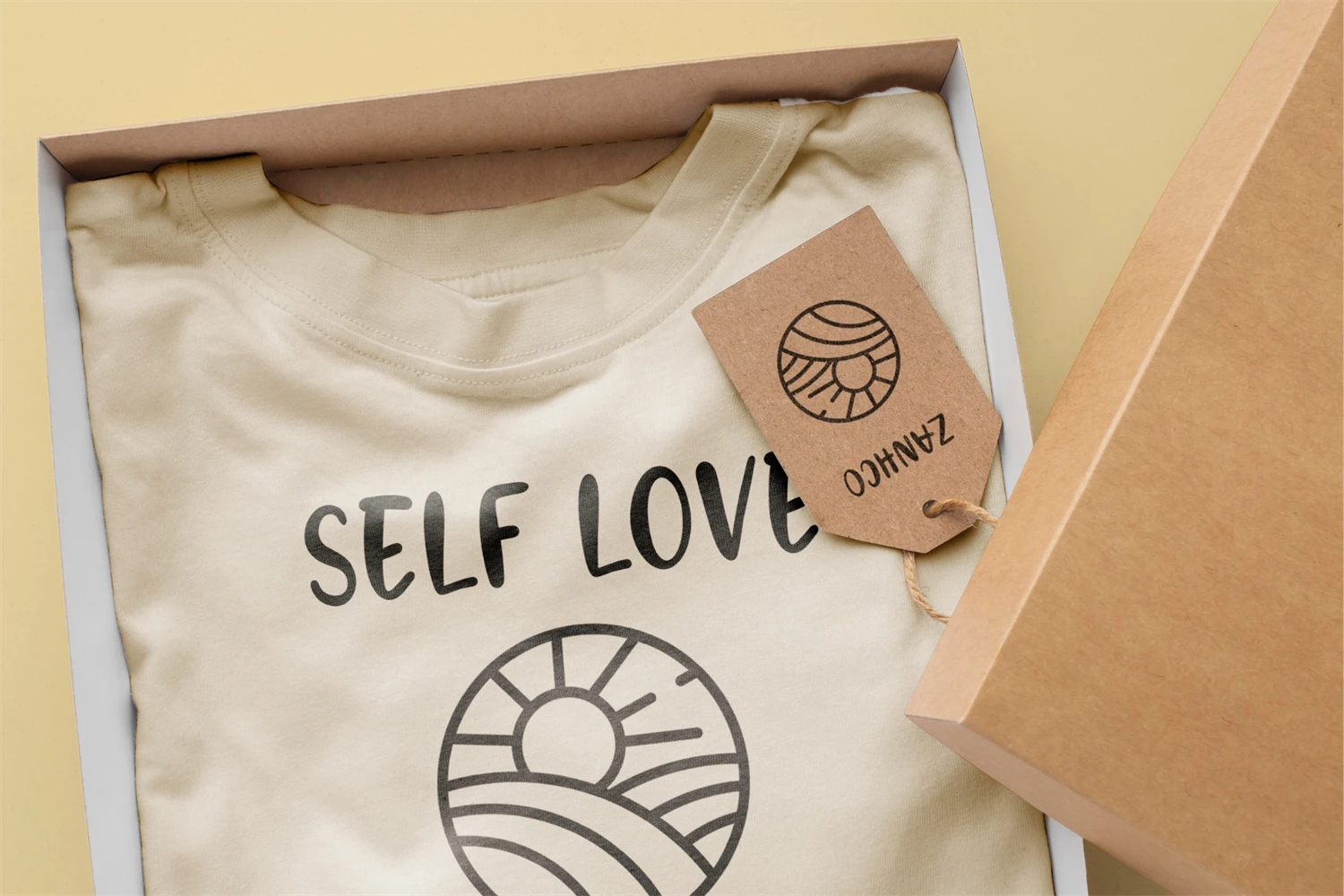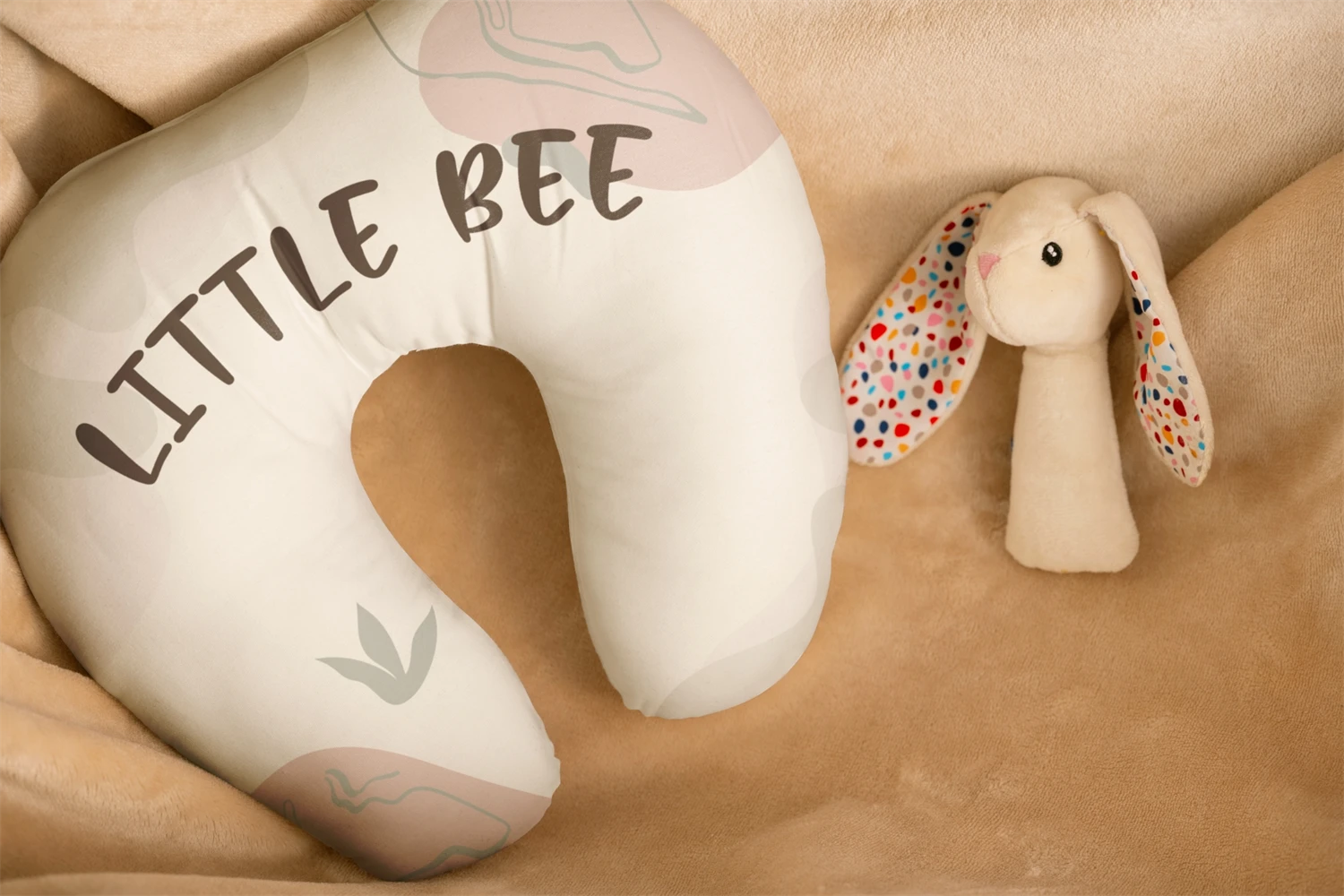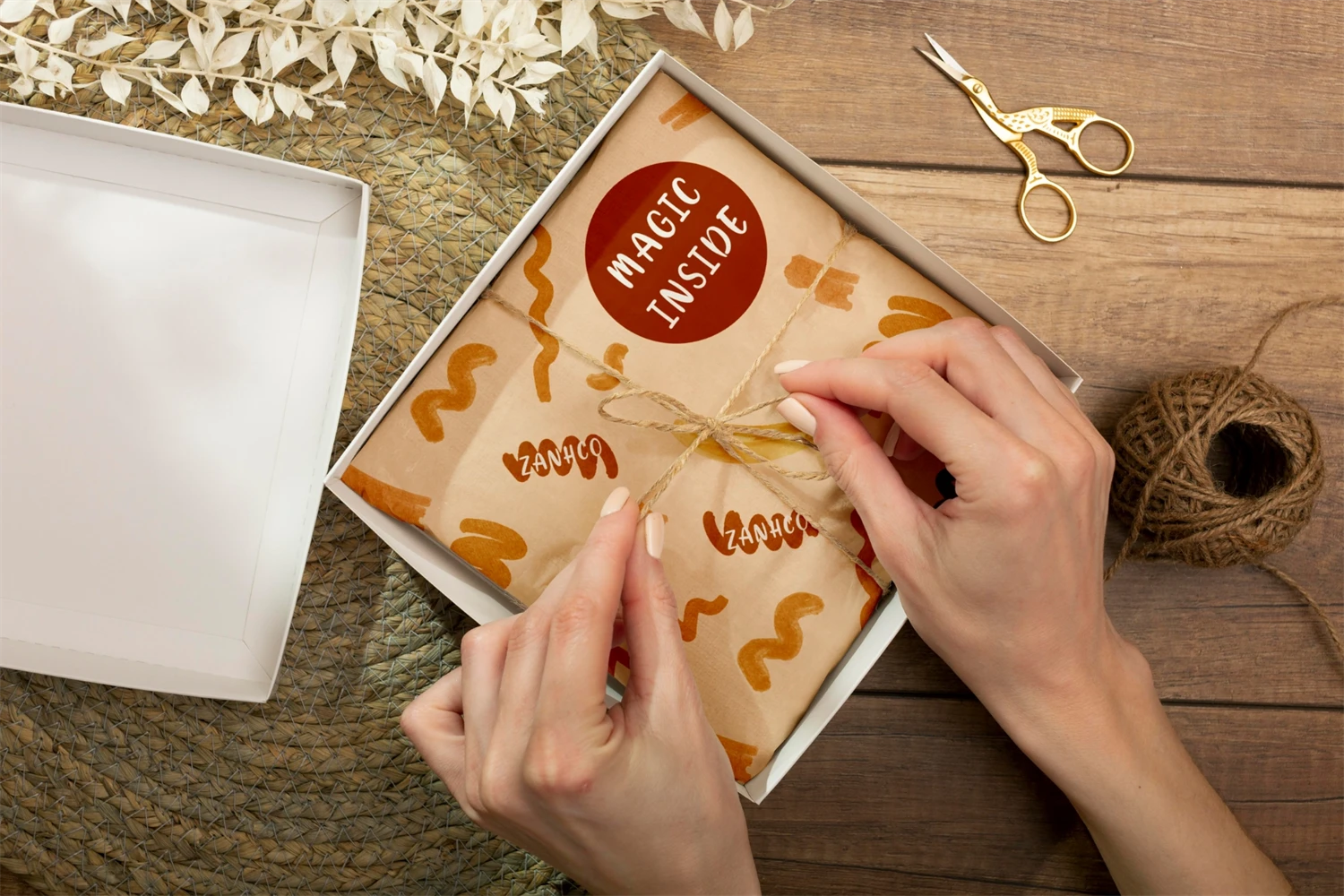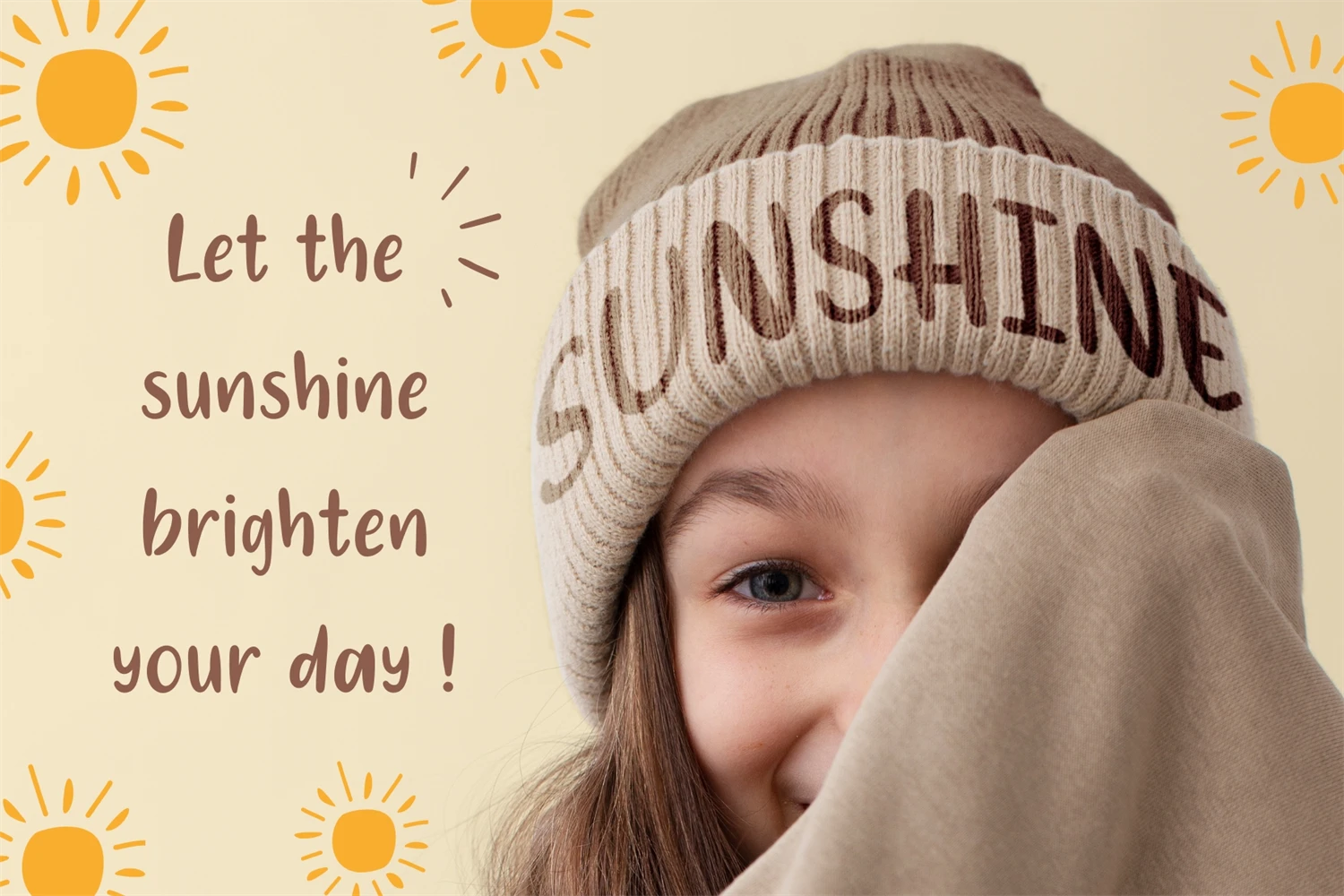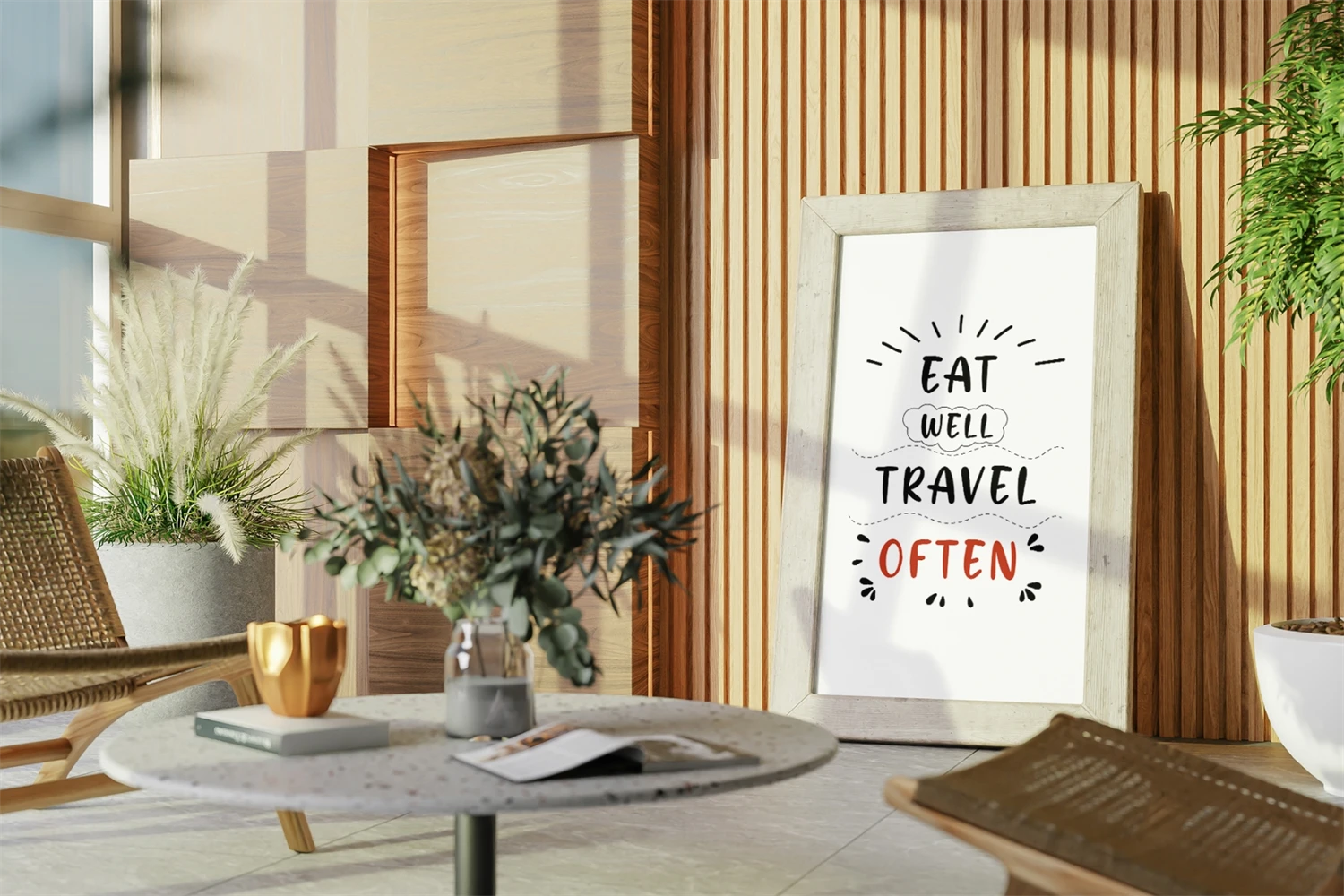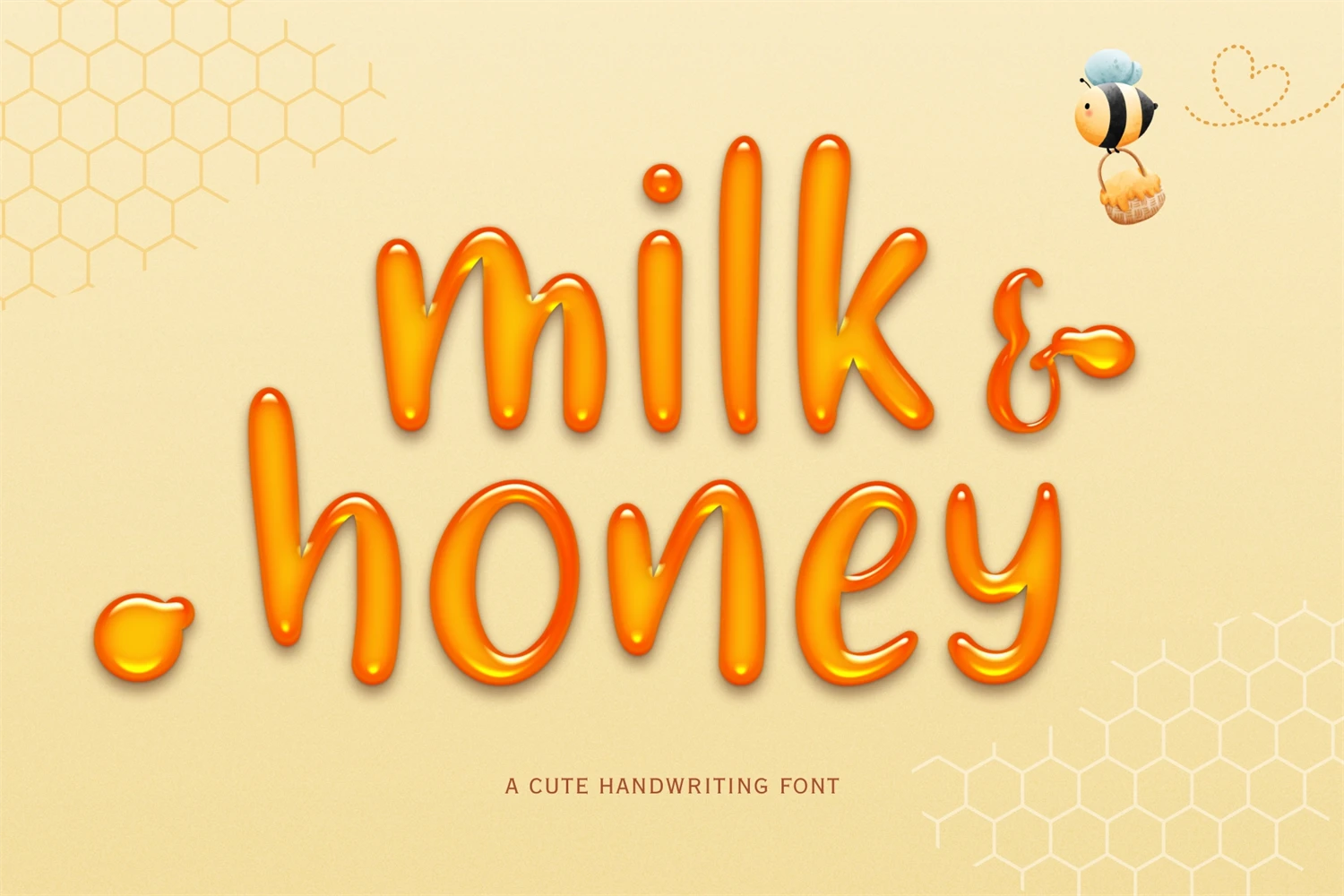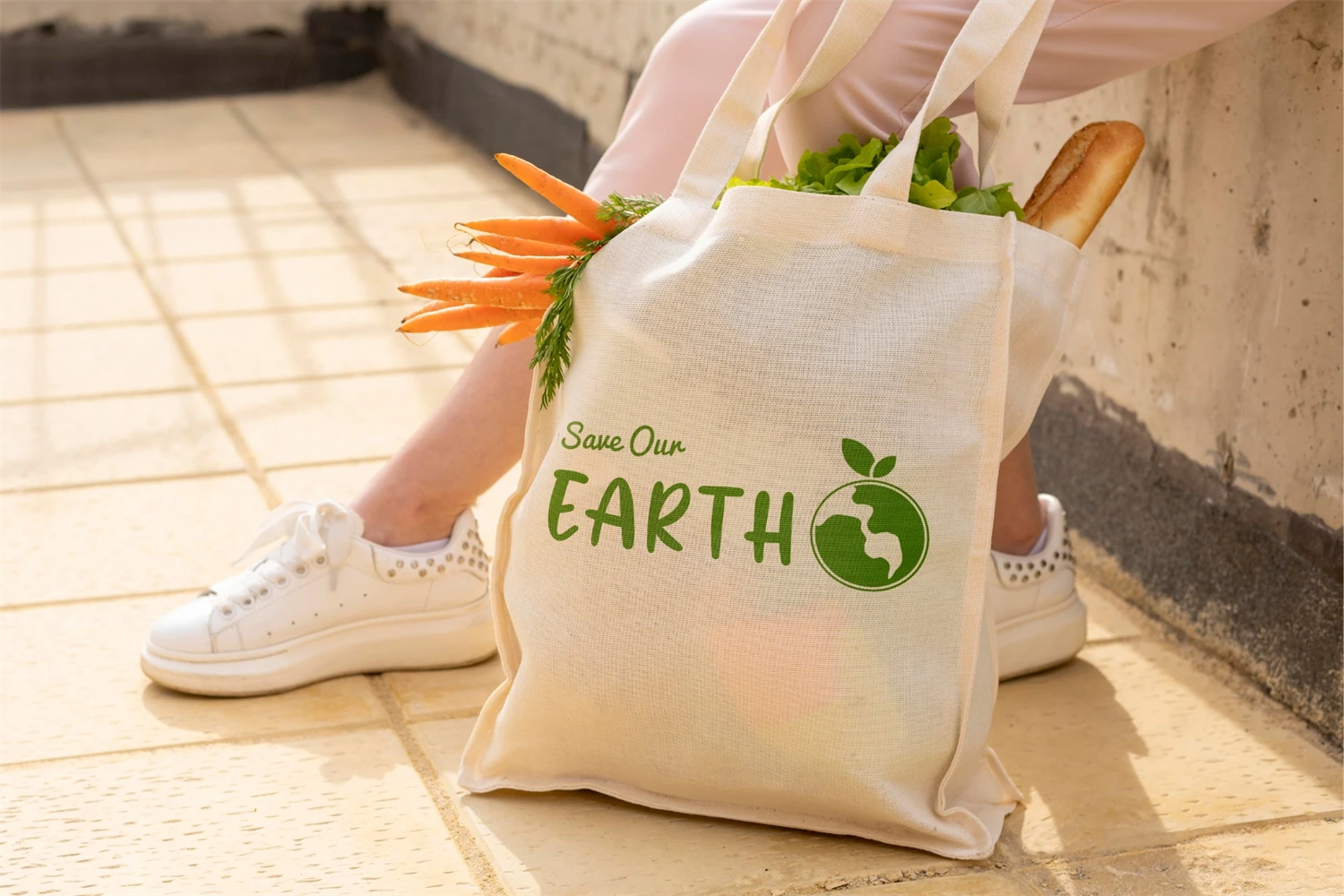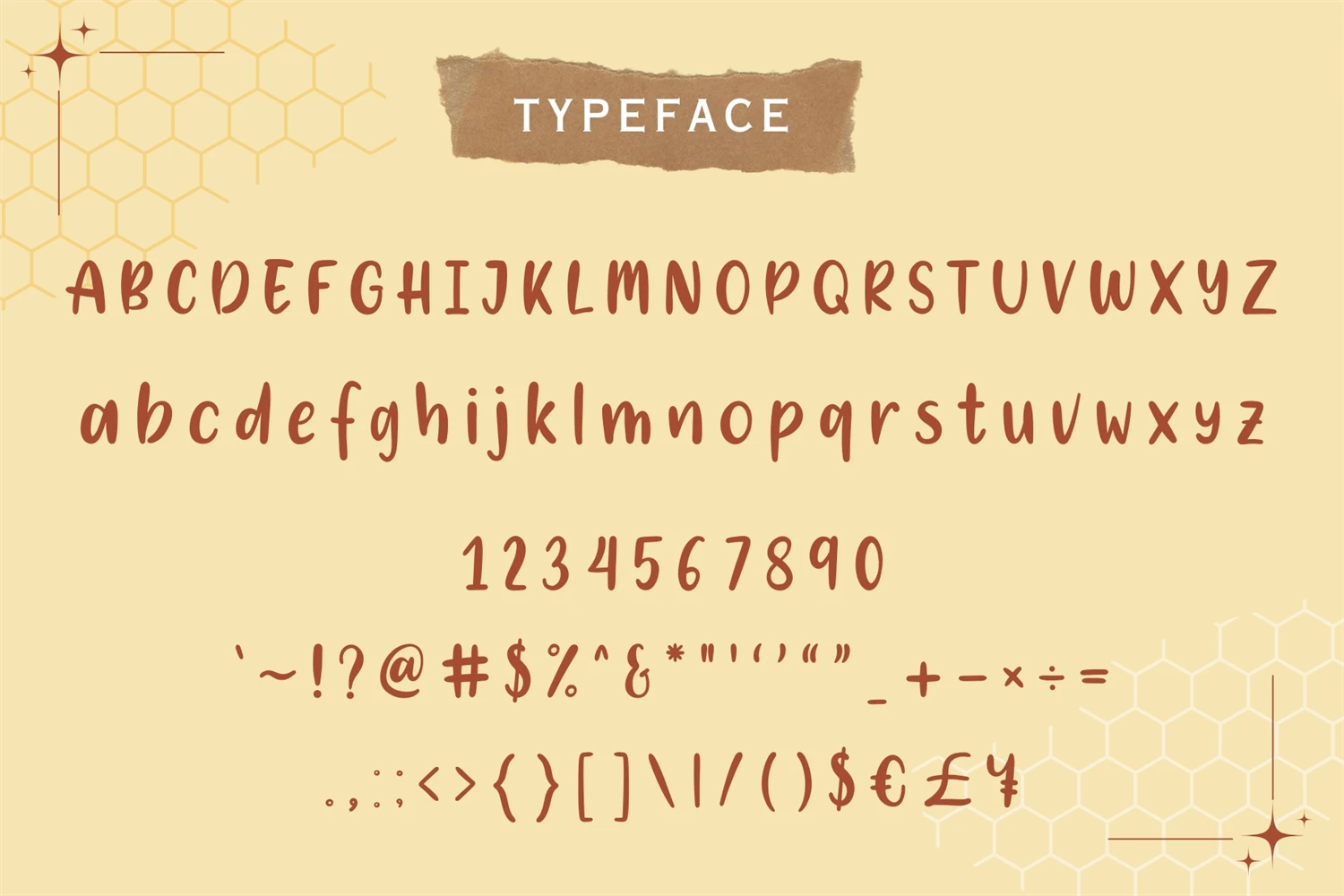
Milk & Honey is a modern and eye-catching sans-serif font. Whether youre working on product branding or content use, creating a display headline, or designing packaging for your latest project. Milk & Honey font will surely bring an impressive smile to your piece of work effortlessly !